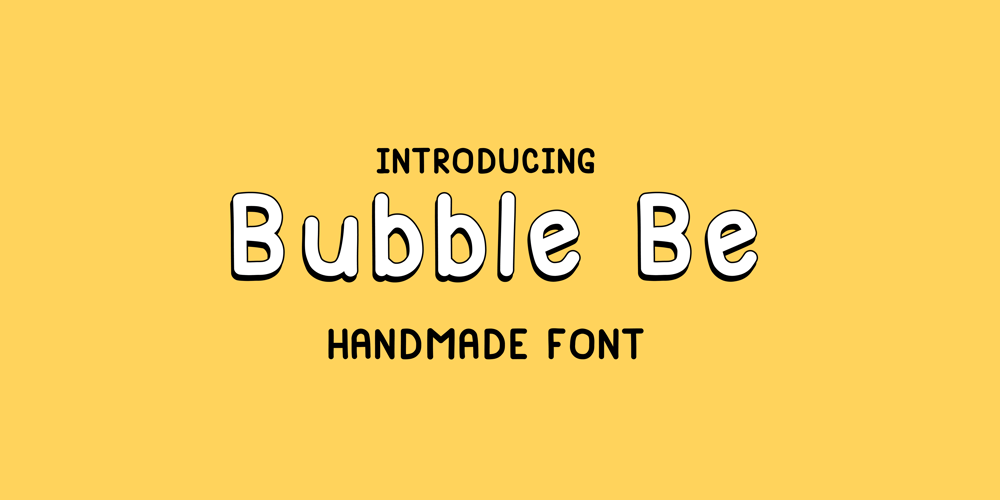
Bubble Be Font Family was designed by Carla Baltuano and published by Baltcub. Bubble Be contains 1 styles and family package options. A handmade font with a simple and round contour features smooth, flowing strokes that mimic casual handwriting. The lines are continuous, without serifs, and curves are prominent, giving it a friendly and organic appearance. The letters are typically uniform in size and spacing, with a relaxed feel, making it perfect for informal or creative designs.